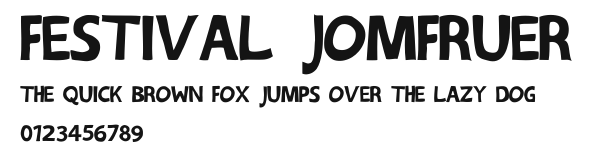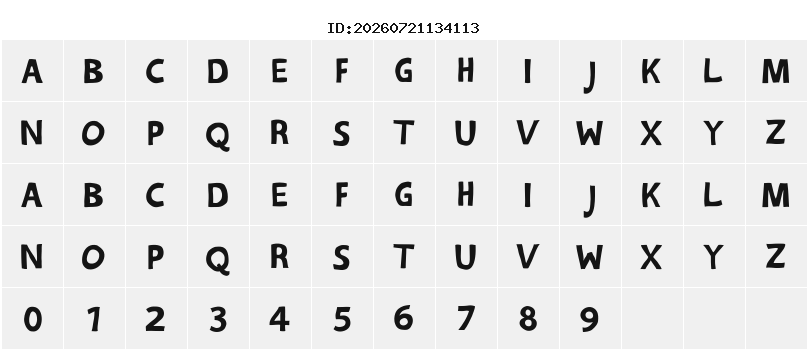
Festival Jomfruer Preview
• Font Name: Festival Jomfruer
• Font Style: Chunky
• Full Font Name: Festival Jomfruer chunky
• Designer: Rashid Akrim
About Festival Jomfruer.ttf
Festival Jomfruer.ttf is a modern, elegant sans-serif font designed for ultimate readability and visual harmony. Perfect for branding, headlines, web design, and print materials.